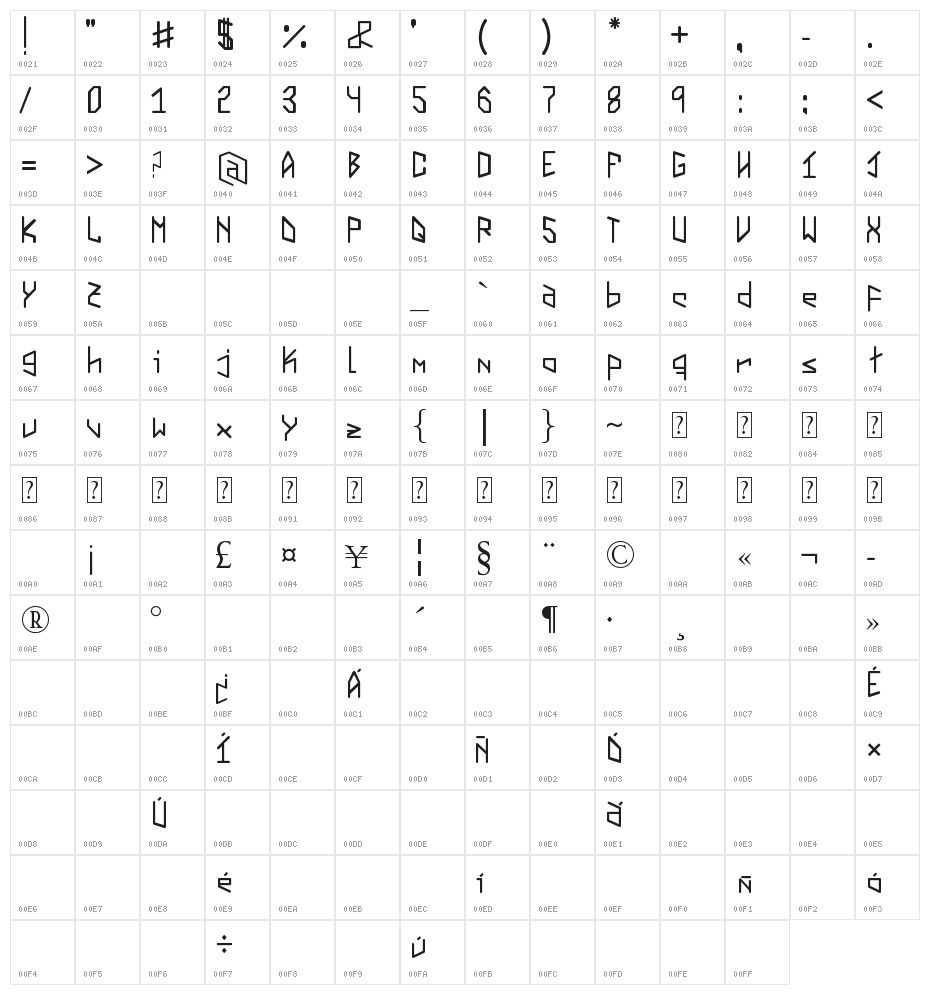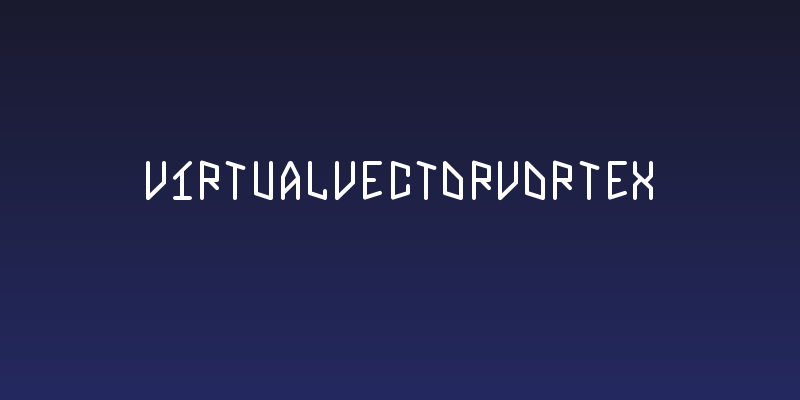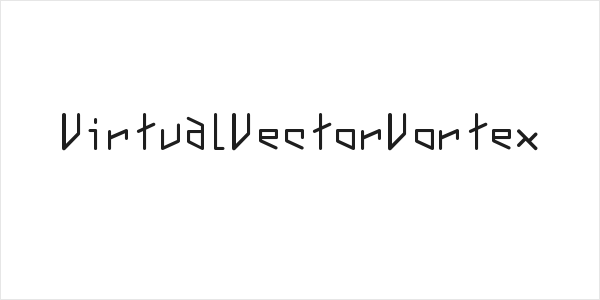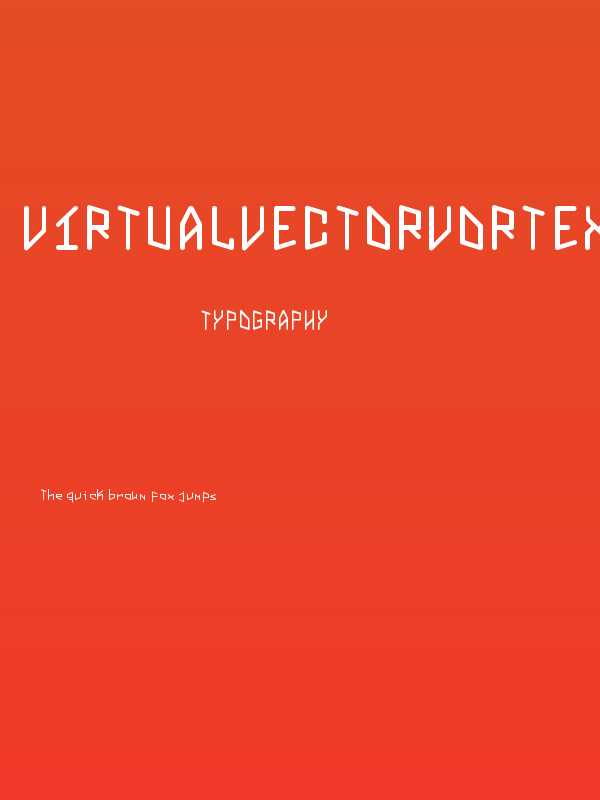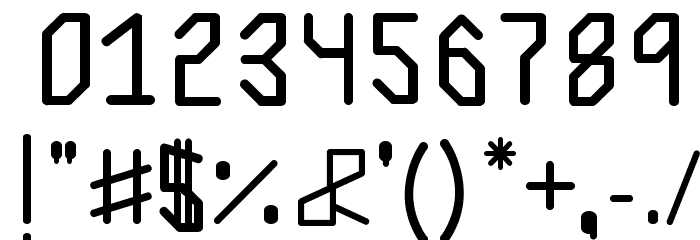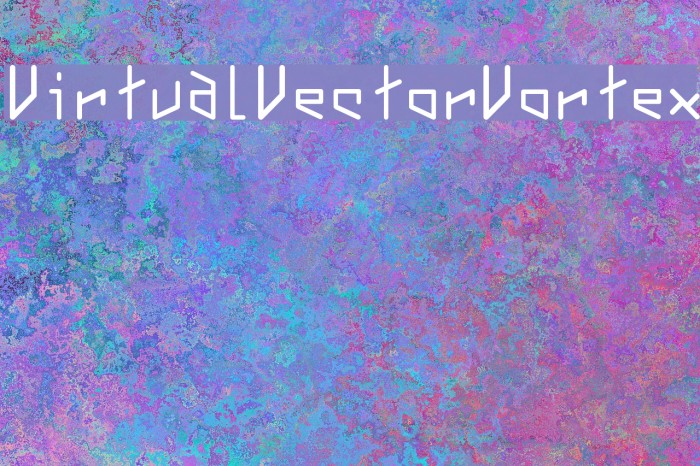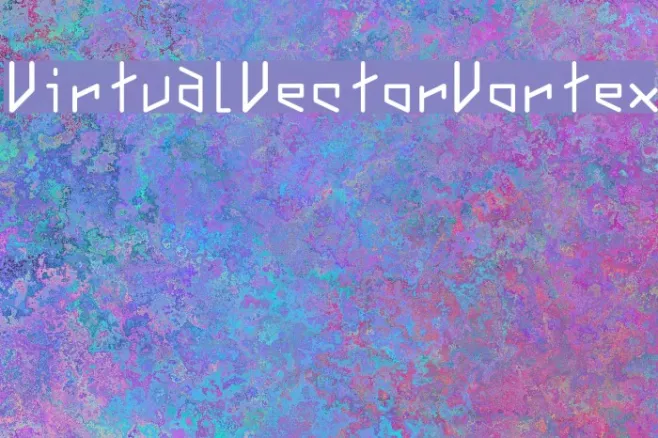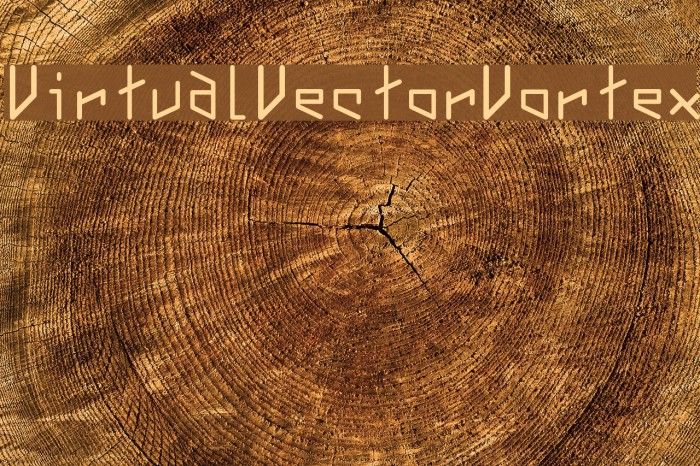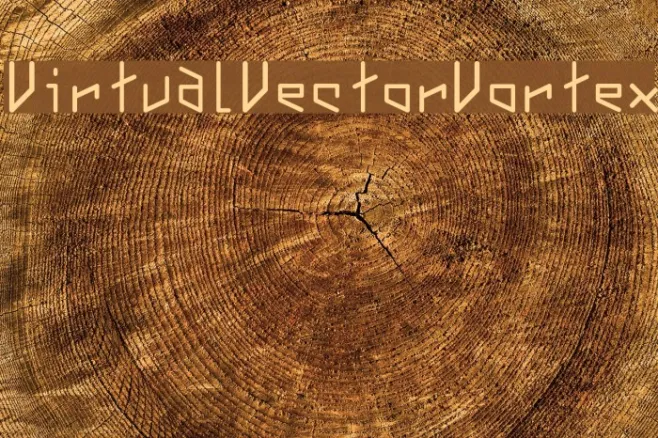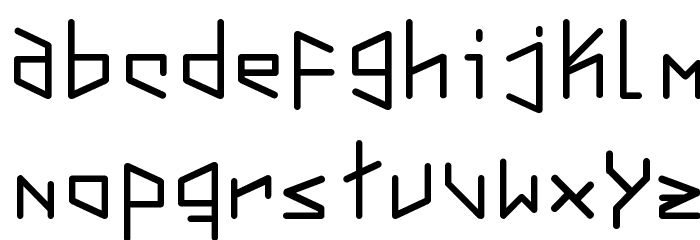
VirtualVectorVortex Font
VirtualVectorVortex Description
This font features a futuristic and angular design, characterized by sharp edges and geometric shapes. The uppercase and lowercase letters share a consistent style, with each character exhibiting a unique, almost robotic appearance. The numbers and special characters maintain this theme, providing a cohesive look across all elements. The font's distinct style makes it stand out, with a modern and edgy vibe that is both eye-catching and memorable. Its clean lines and structured form give it a sense of precision and innovation, making it suitable for projects that require a contemporary and tech-savvy aesthetic.
| Proposed Projects | Ideal for tech branding, sci-fi posters, video game titles, and digital interfaces. |